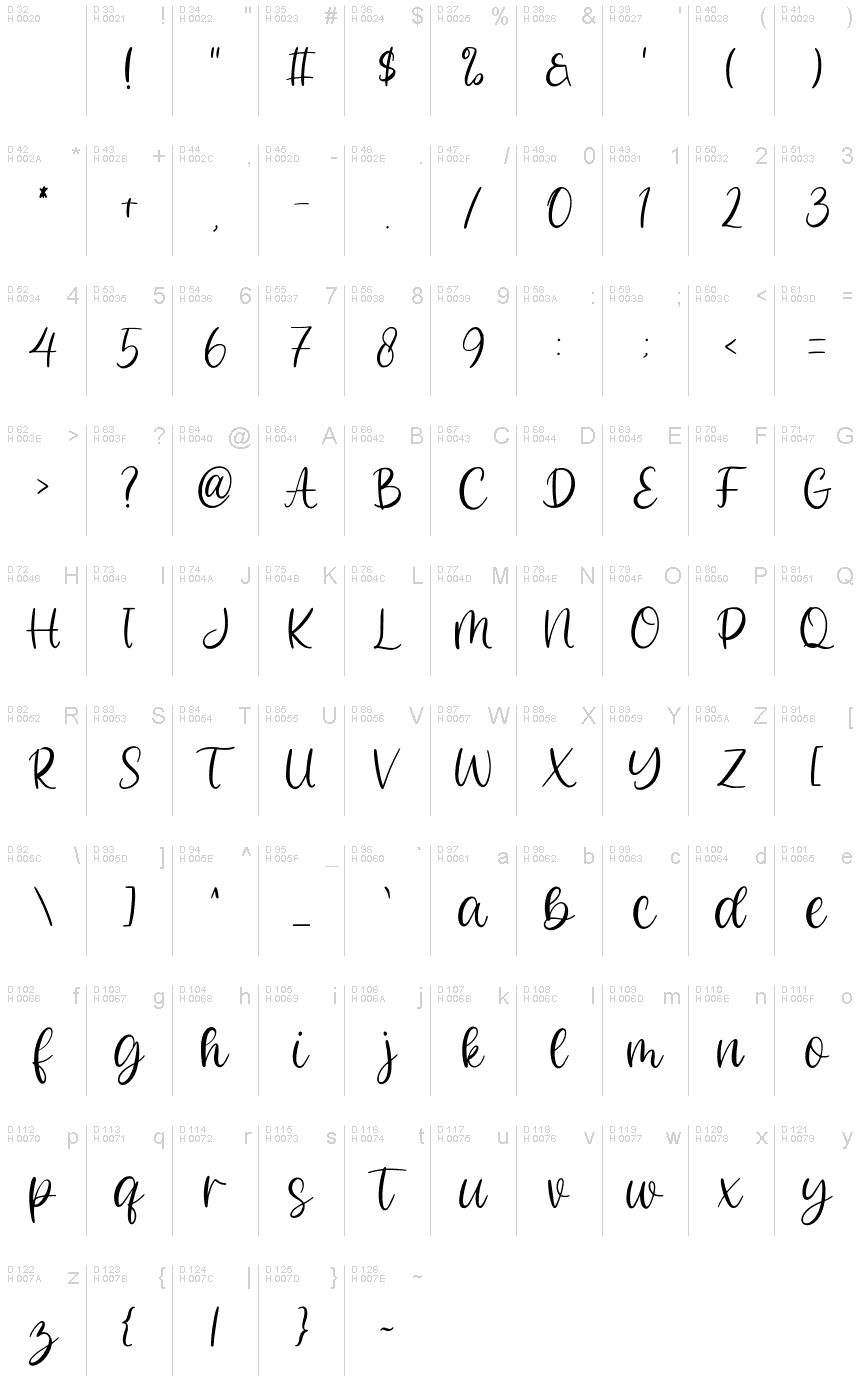
Bellafela
Bellafela is a mesmerizing calligraphy font by Qwrtype Foundry. With its semi-light weight, this font exudes elegance and sophistication in every stroke. Its graceful curves and flowing lines make it perfect for wedding invitations, fashion magazines, beauty blogs, and luxury branding projects. Bellafela adds a touch of class to any design with its intricate details and timeless appeal. Elevate your projects with the enchanting charm of Bellafela – a font that captures the essence of refined beauty.